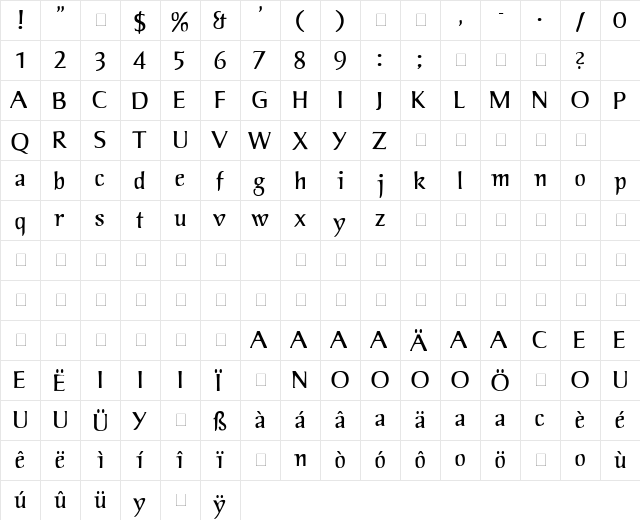
Jorvik Informal Regular
Design Context for Jorvik Informal Typeface
Jorvik Informal offers clean, dependable letterforms without strong stylistic allegiance, making it a practical choice for designers who need flexibility.